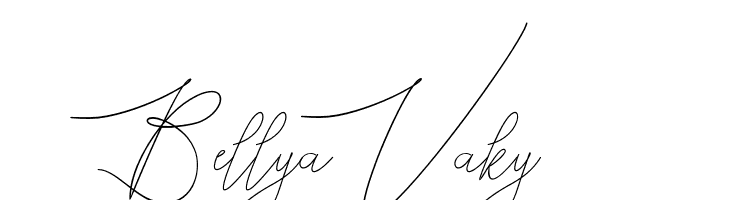
( Rifan Asri )
A delicate and elegant script font with flowing, graceful strokes.
تحظى Jenkins Keepin it Real, Return Policy DEMO Regular, MTF Becki, Bellya Vaky and Argentum Novus Thin بشعبية لخطوطها النظيفة وتطبيقاتها الواسعة — من الهوية البصرية إلى الصفحات المقصودة والملصقات.